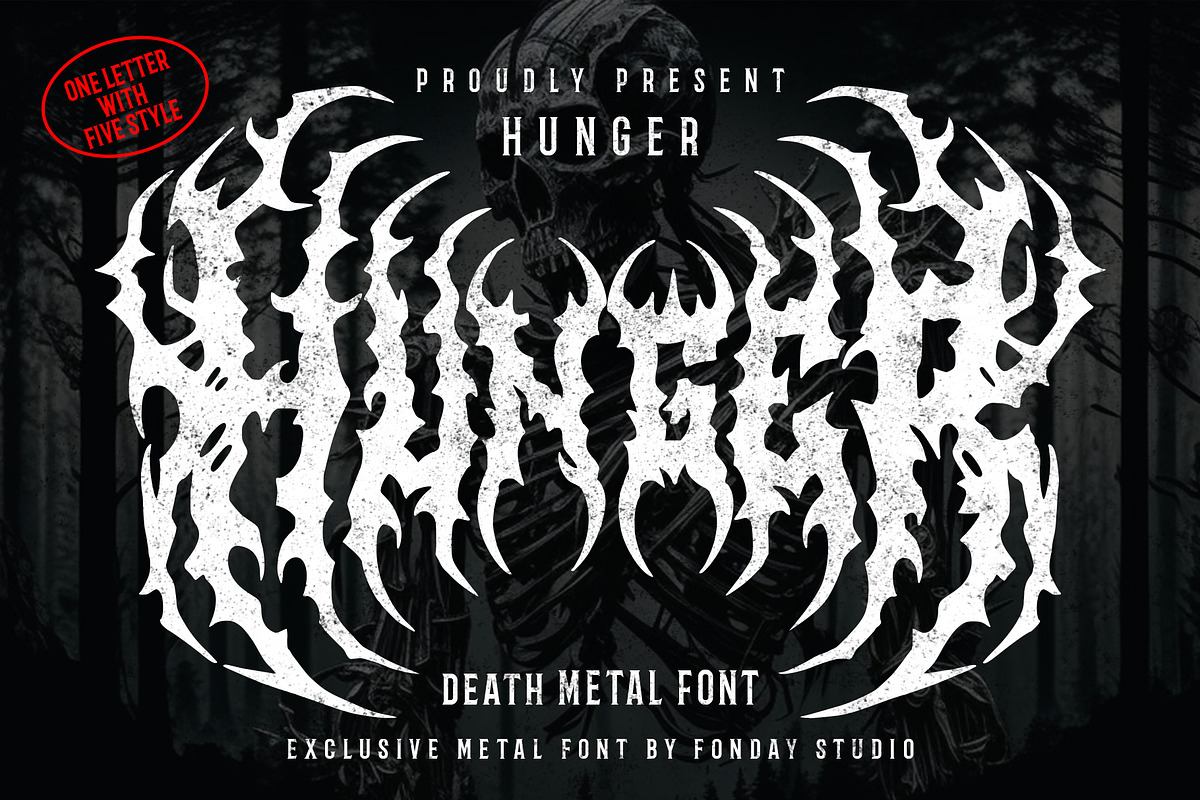
HUNGER - Death Metal Font Free Download
Please note, to use this font for commercial purposes, you must purchase the full version. HUNGER is a fierce and aggressive death metal font designed to give your projects a bold, edgy look. With its sharp, jagged letterforms and gritty style, it’s perfect for album covers, band logos, posters, and any design that needs a powerful, dark vibe. Whether you're working on a heavy metal design or a horror-themed project, HUNGER brings intensity and impact to your work. Test it out and enjoy free download access for personal use. Unleash the raw energy of HUNGER - Death Metal Font Free Download before purchasing the commercial license. Add a brutal and intense touch to your designs with this heavy-hitting font.